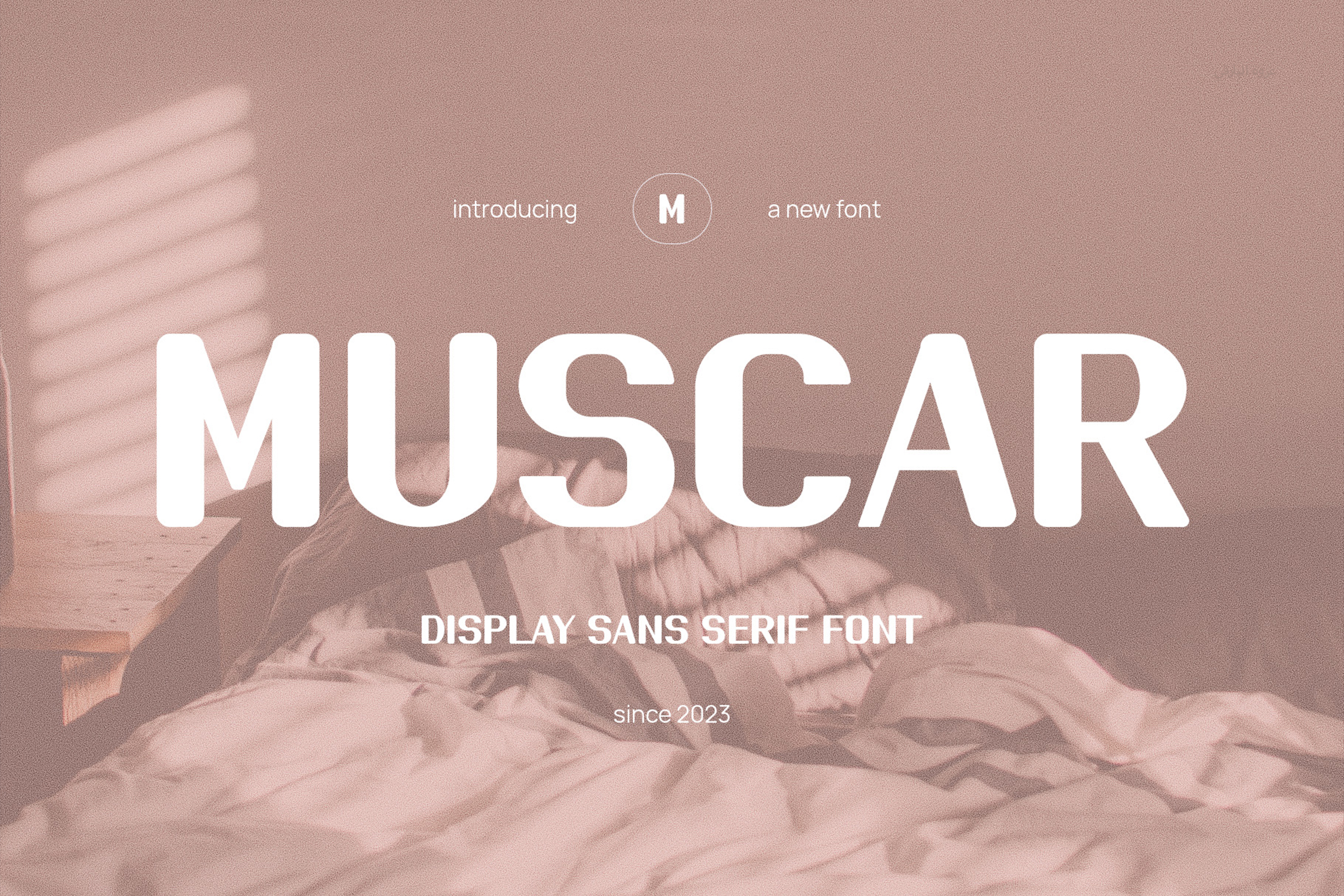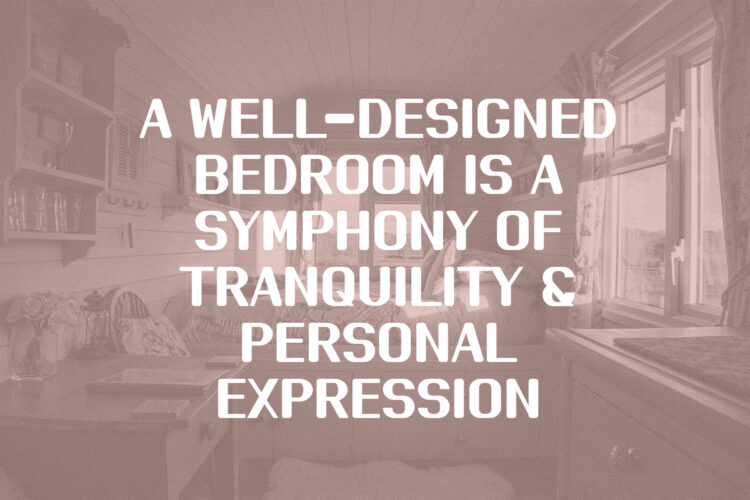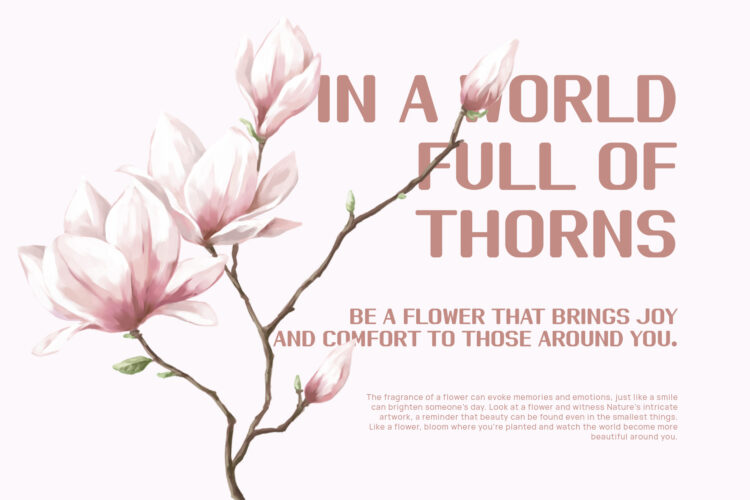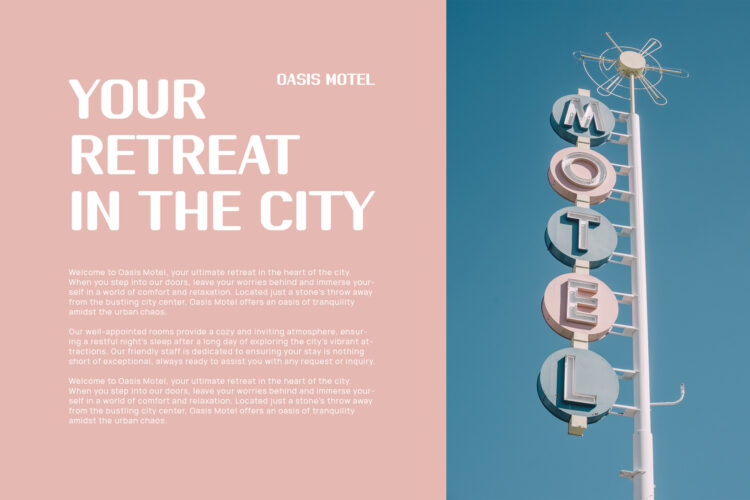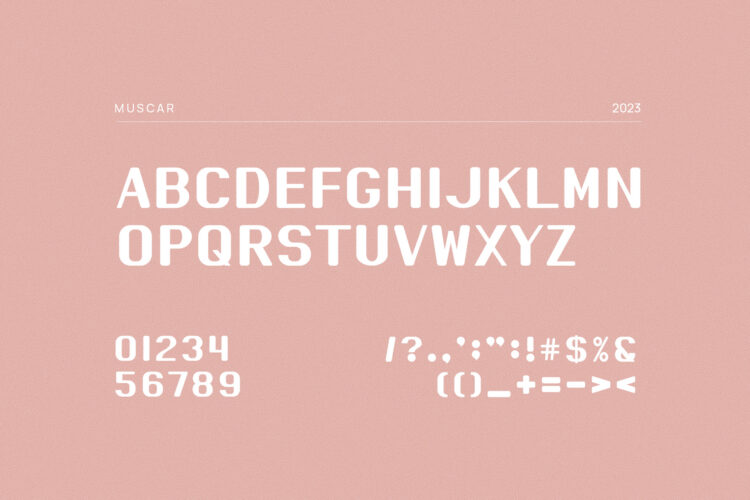
Introducing our new Muscar, modern sans serif font with elegant style this is perfect for branding, logos, invitation, magazines, product packaging and more.
Muscar – Modern Sans Serif